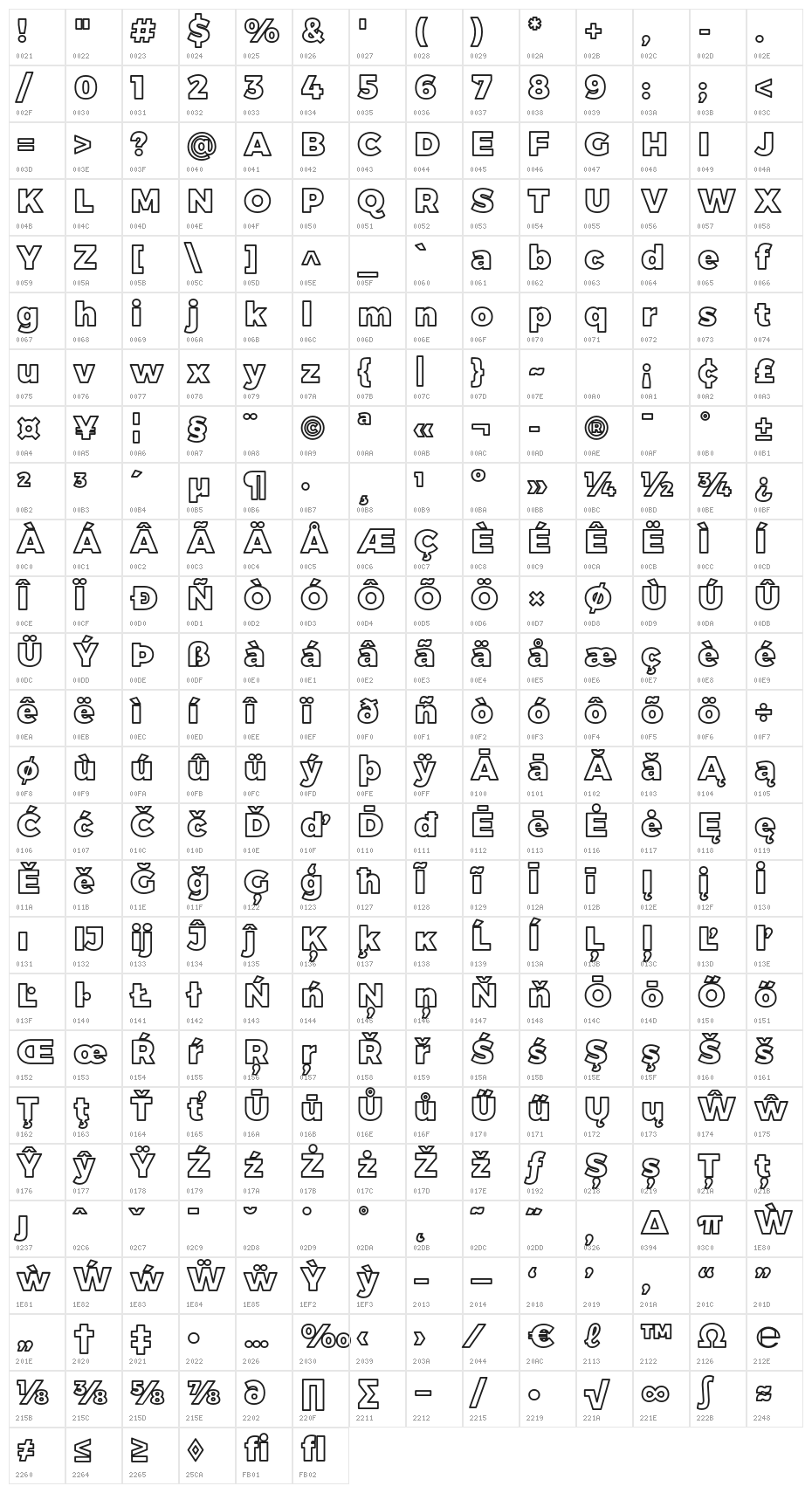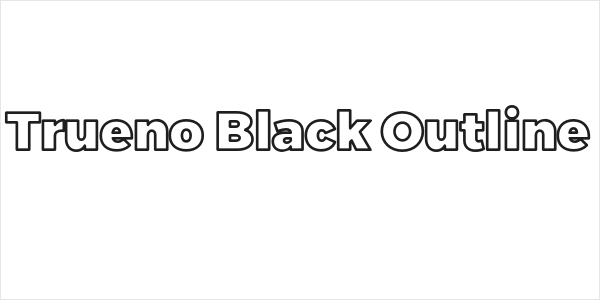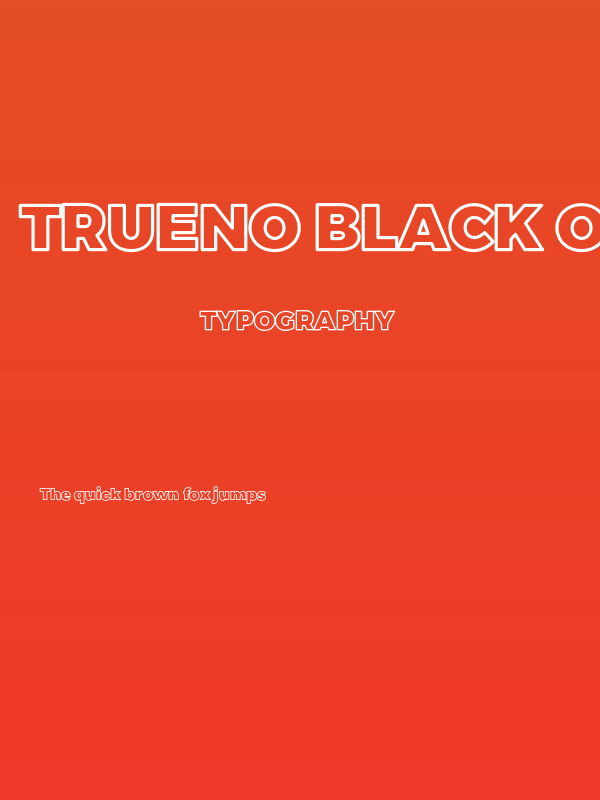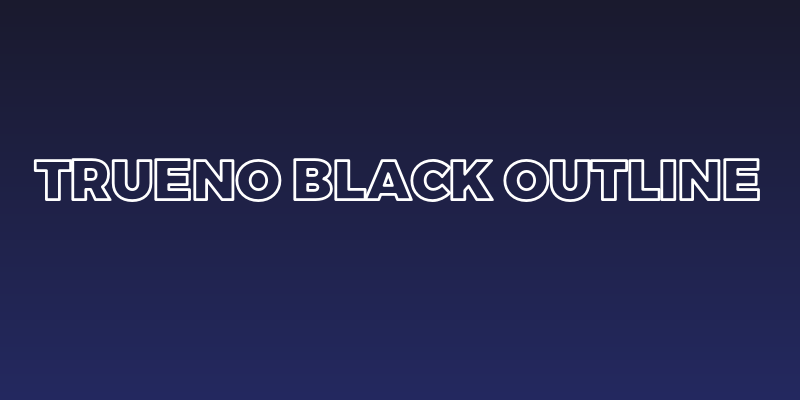
Trueno Black Outline Font
Trueno Black Outline Description
This font features bold, uppercase and lowercase letters with a distinct outline style that gives it a striking and modern appearance. The characters are well-defined with a consistent thickness, creating a strong visual impact. The numbers and special characters follow the same outlined style, ensuring uniformity across all glyphs. This font is ideal for creating attention-grabbing headlines or logos due to its bold and clear design. The spacing between characters is normal, allowing for easy readability while maintaining its bold aesthetic.
Proposed ProjectsIdeal for branding, poster design, headlines, and any project requiring a bold and modern look.